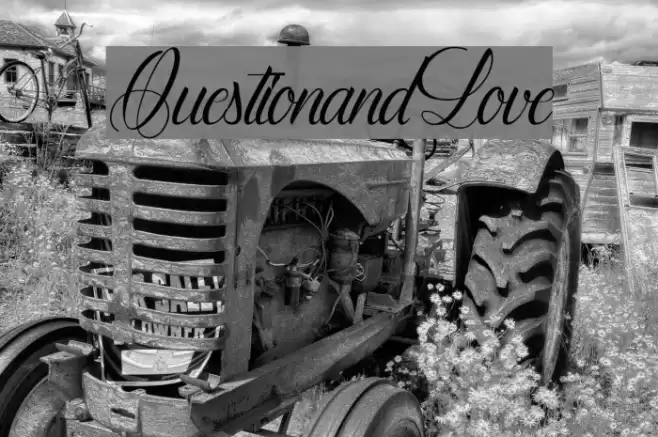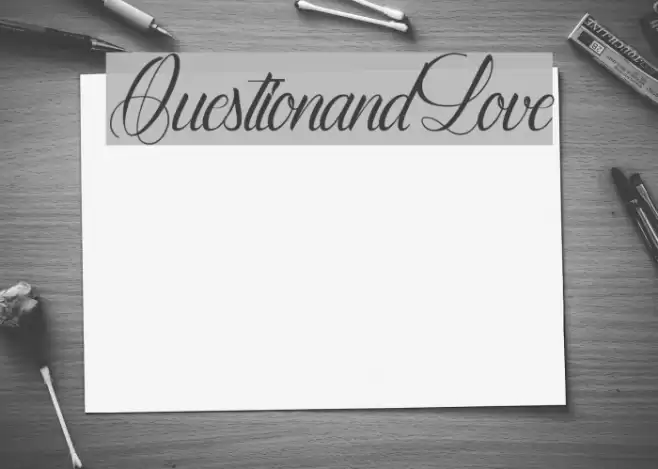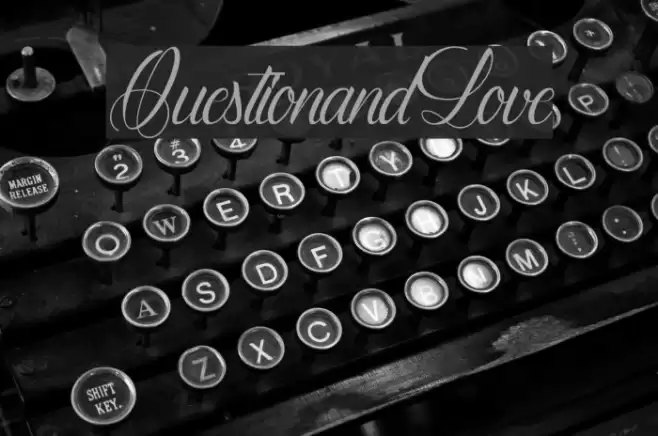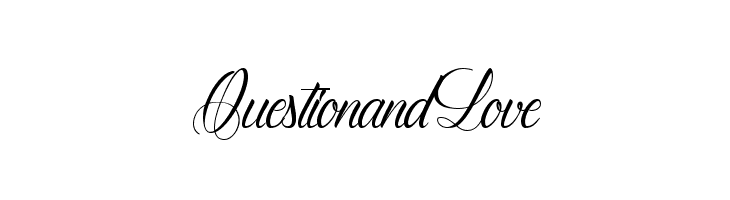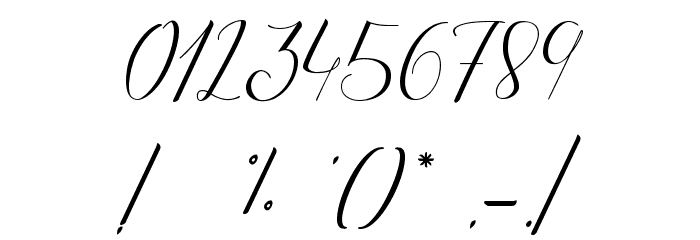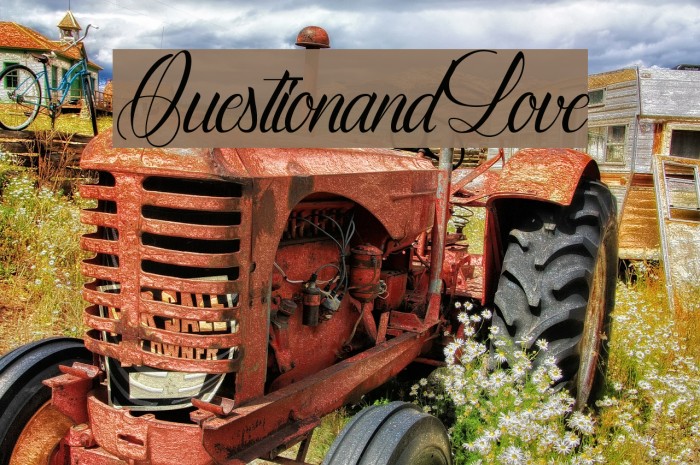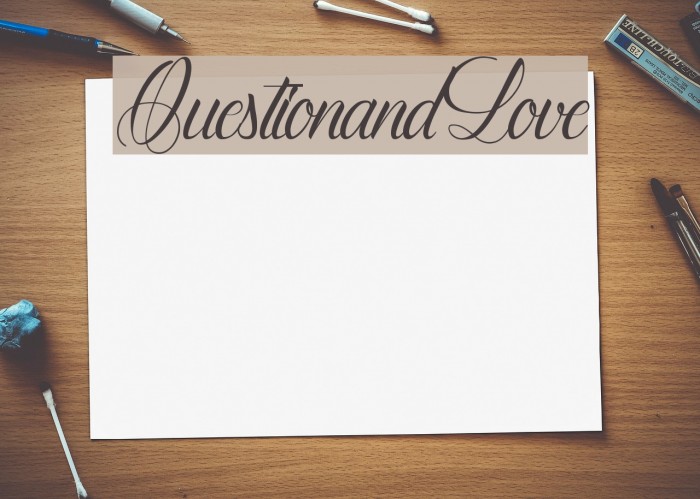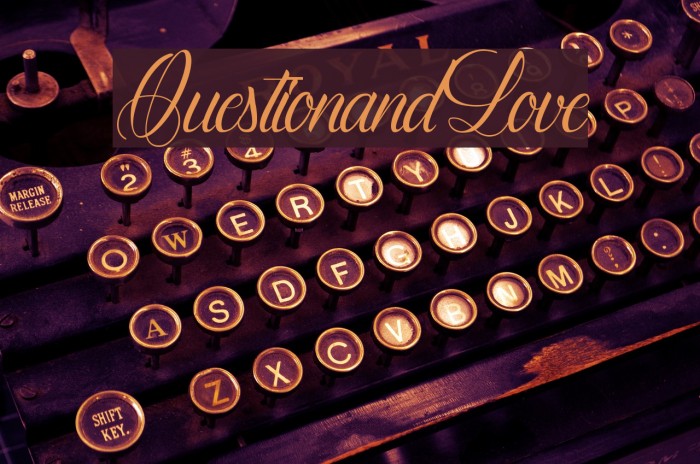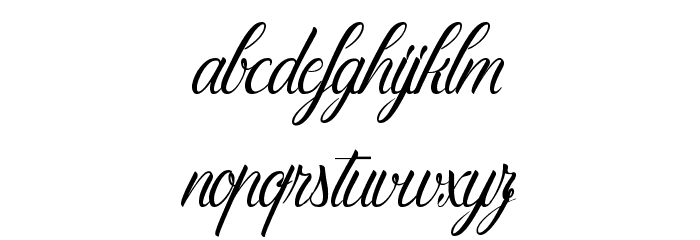
QuestionandLove Font
QuestionandLove Description
This elegant script font features a flowing, cursive style with intricate loops and swashes that give it a sophisticated and romantic appearance. The uppercase letters are particularly ornate, with elaborate flourishes that extend beyond the baseline and cap height, adding a touch of drama and flair. The lowercase letters maintain a consistent flow, with smooth connections between characters that enhance readability while preserving the decorative nature of the font. The numerals and special characters are designed to match the overall aesthetic, with graceful curves and delicate lines. This font exudes a sense of elegance and refinement, making it ideal for formal and decorative applications.
An elegant script font with flowing cursive style and intricate swashes from Uncategorized fonts.
- Proposed Projects: Wedding invitations, elegant branding, romantic quotes, luxury packaging.
- Use Case: Logos, Invitations, Decorative text